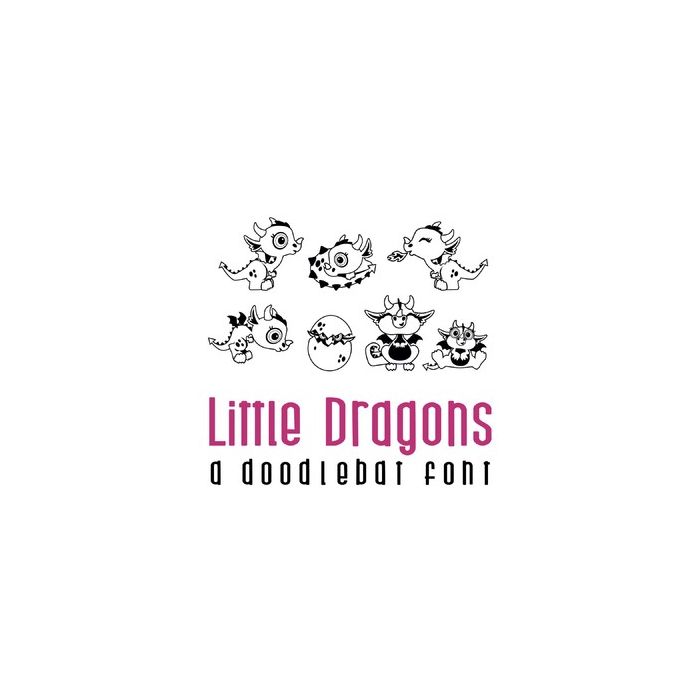
little dragons doodlebat font
This fun doodlebat font features 26 adorable dragons. Perfect for cards, gifts, decor, crafts, scrap book pages, planner stickers and more!